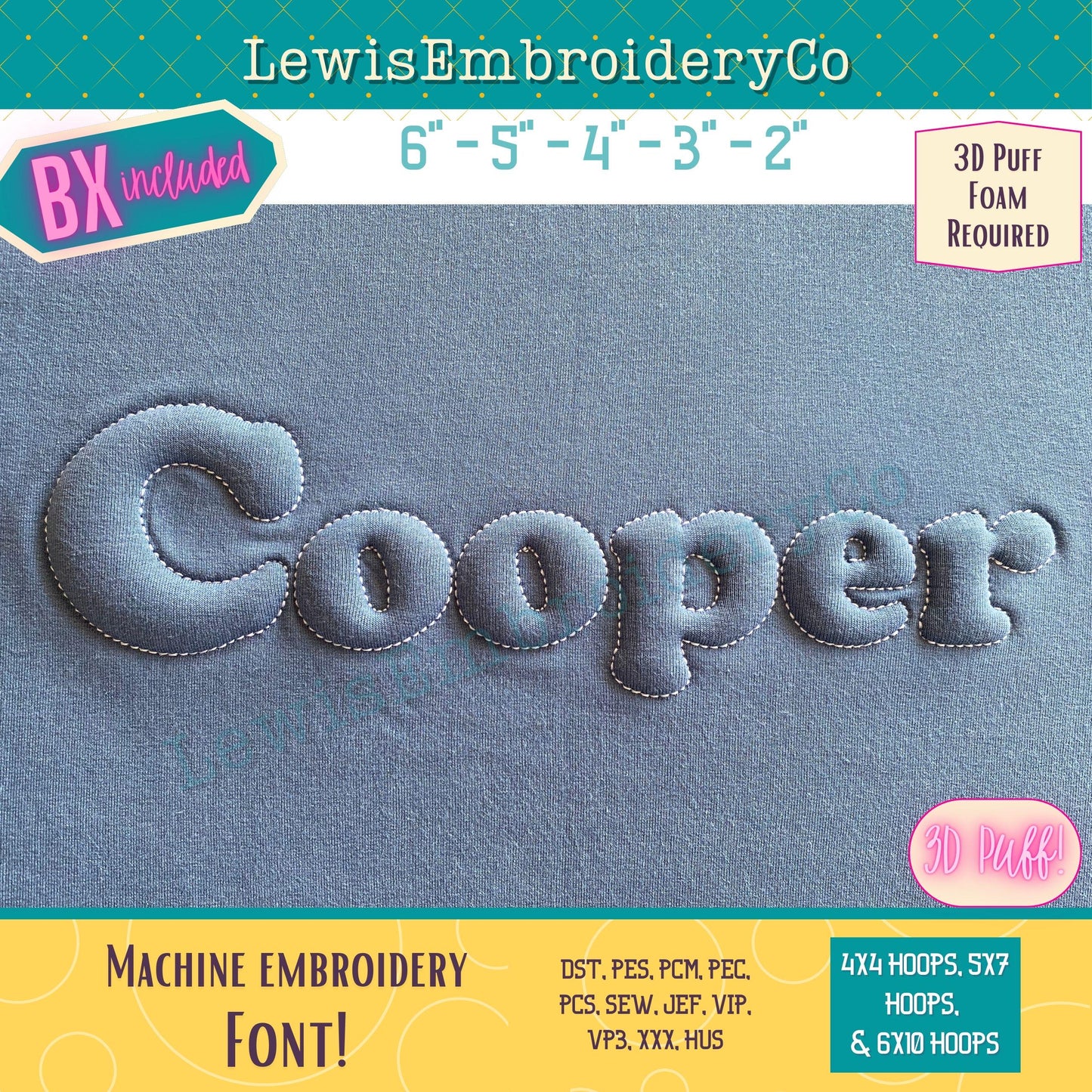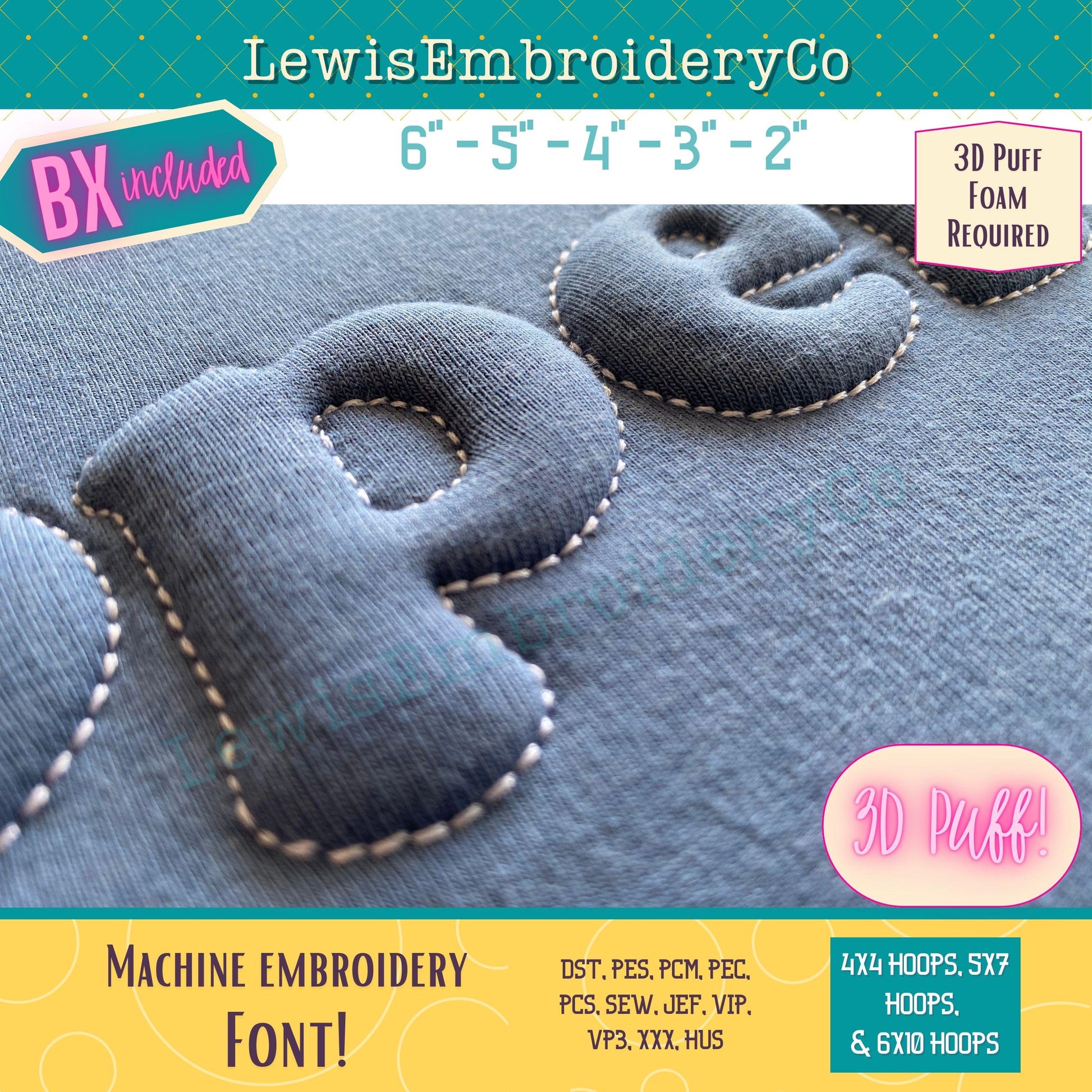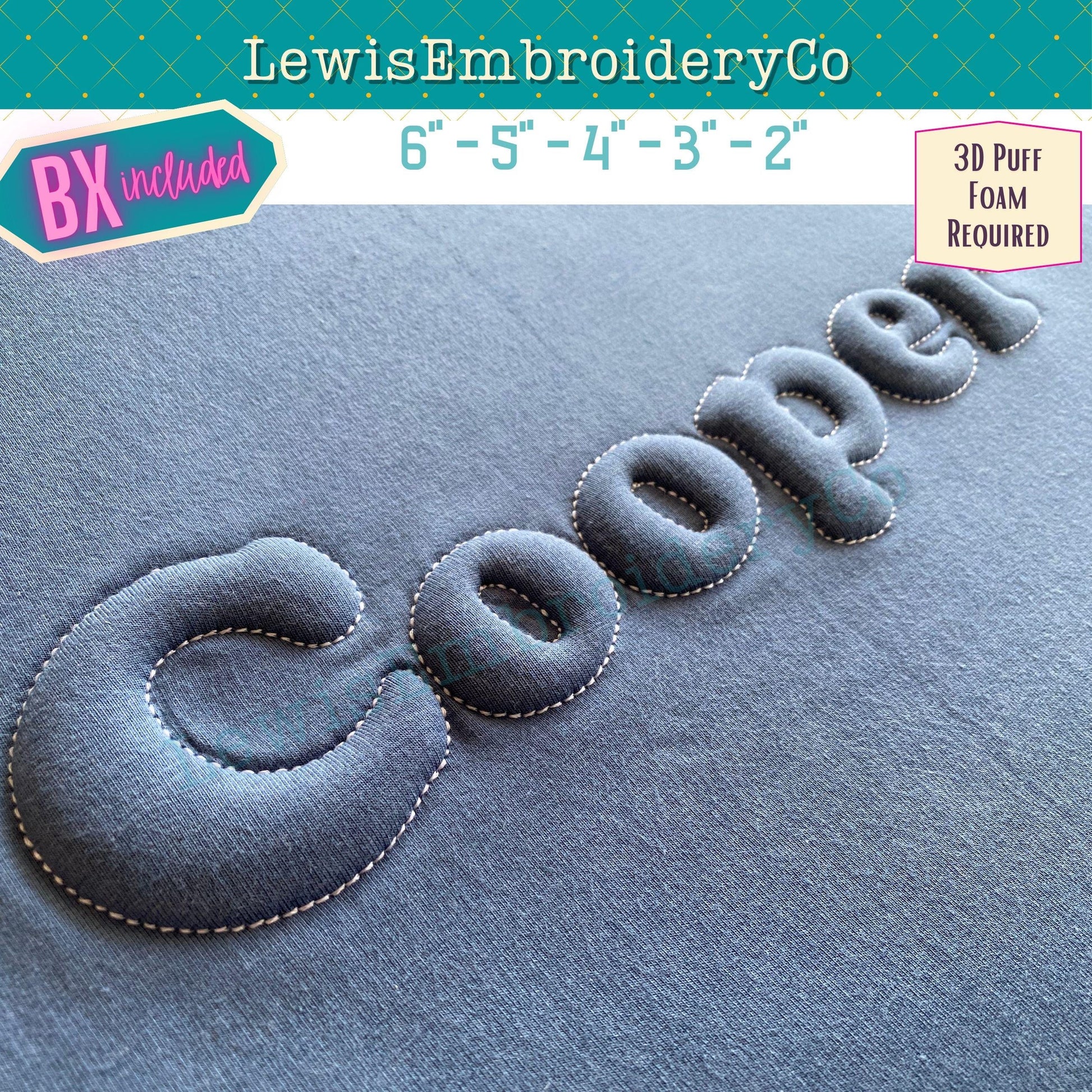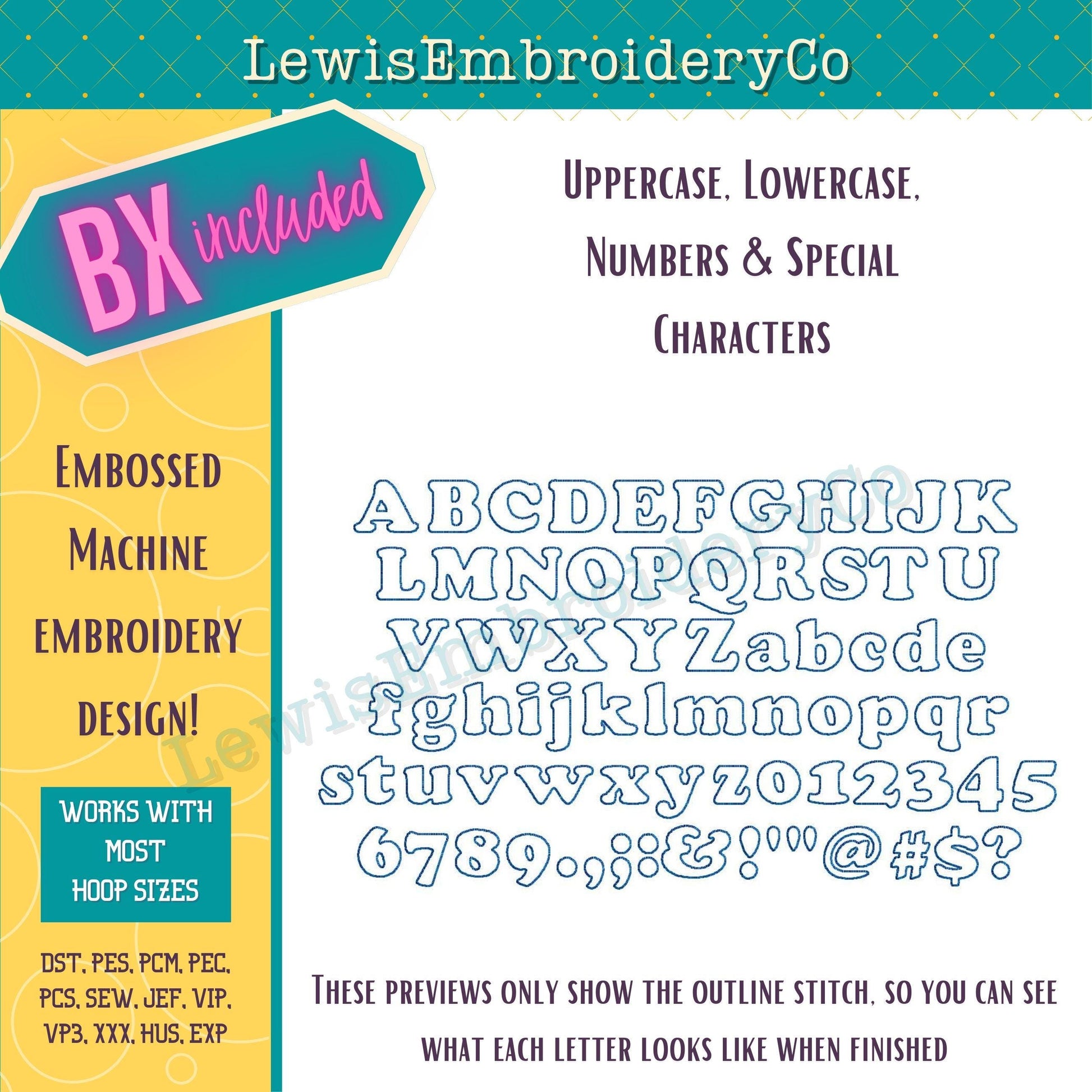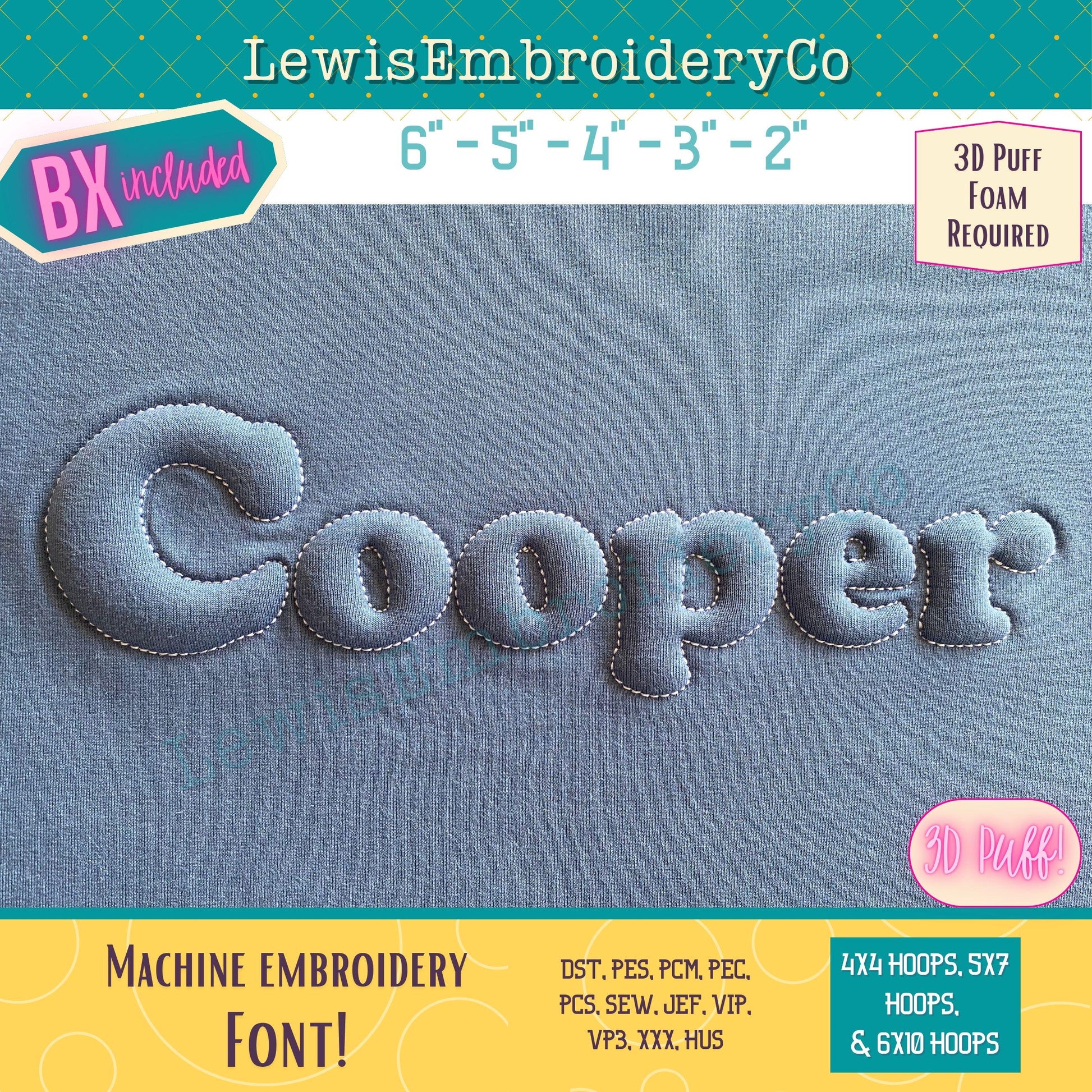
Embossed 3D Puff, Cooper, Machine Embroidery Font - With BX - (PDF Tutorial Included)
Embossed 3D Puff Embroidery Font - Puff Foam Embroidery Font - Puffy Outline Font - Bold Embroidery Font - Cooper Font - BX Font
This font was designed to be used with a weighted stretchy fabric, such as sweatshirt material. The quality of the outcome cannot be guaranteed if you use very lightweght fabric, or fabric with no stretch.